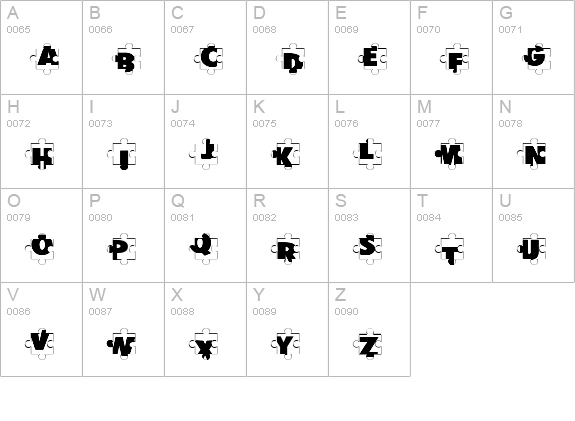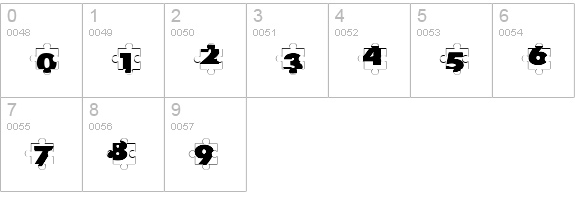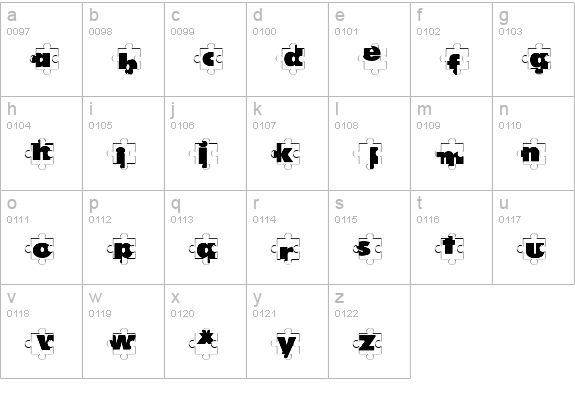
Puzzle Pieces Font Details
Introducing Puzzle Pieces font - a unique and playful typeface that will add a touch of whimsy to your designs. This font features intricate details that resemble puzzle pieces fitting together, creating a fun and eye-catching look. Whether you're working on a project for a children's book, a game, or simply looking to add a creative twist to your branding, Puzzle Pieces font is the perfect choice. The best part? Puzzle Pieces font is available for free download at FontsMarket.com. This means you can easily access this charming font and use it in your personal or commercial projects without any cost. Don't miss out on the opportunity to add a fun and engaging element to your designs with Puzzle Pieces font - get it now and let your creativity shine!